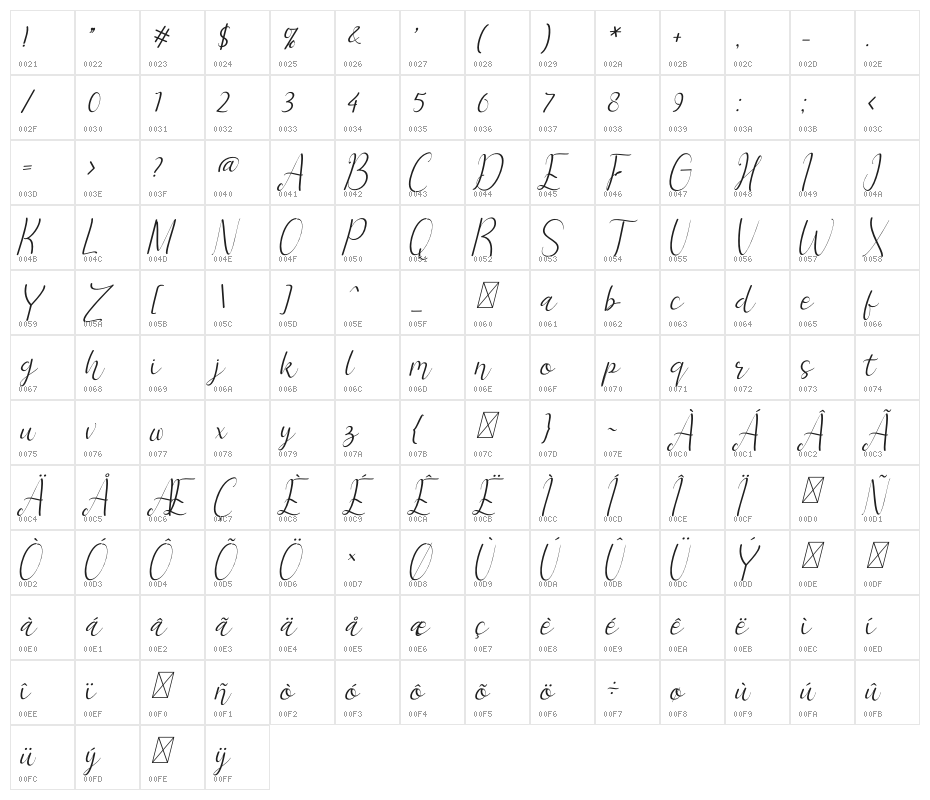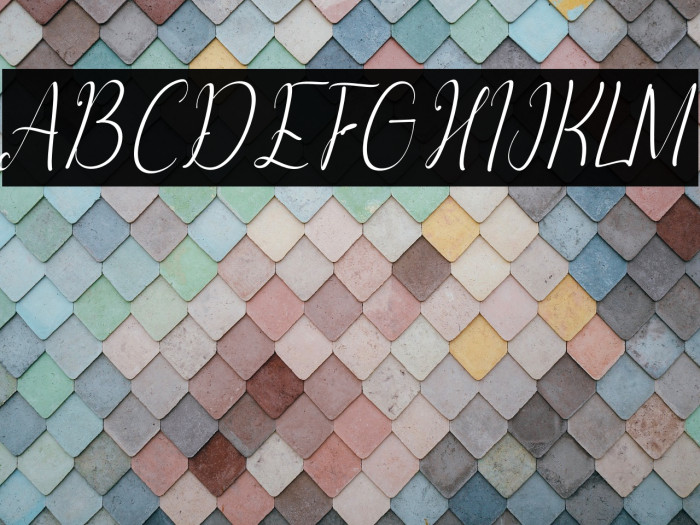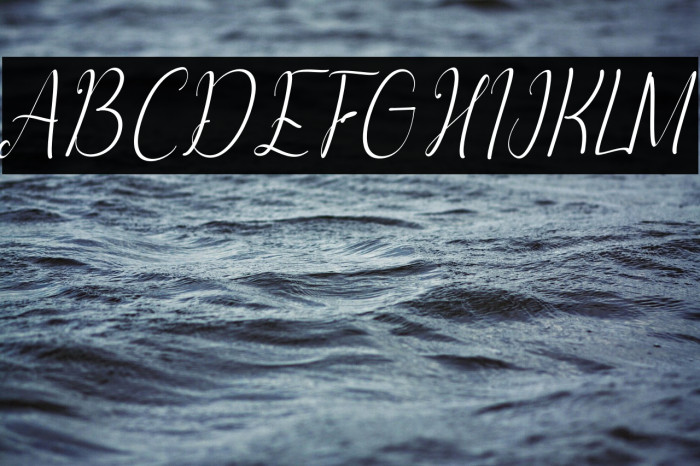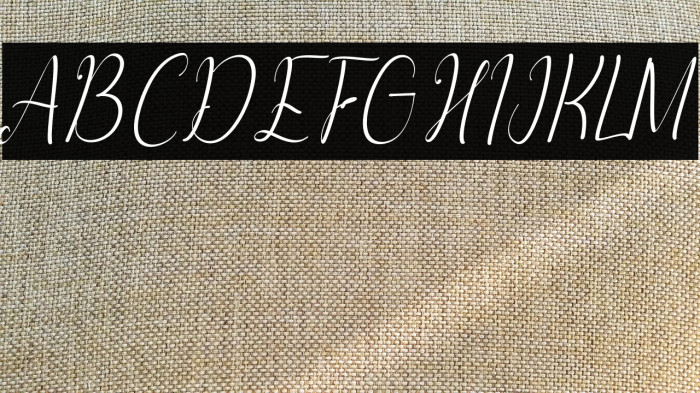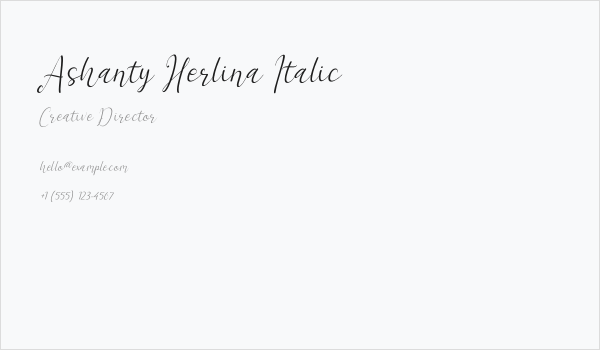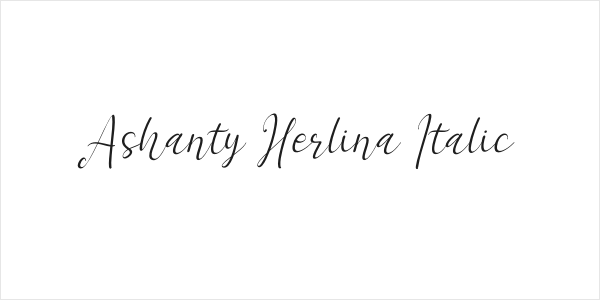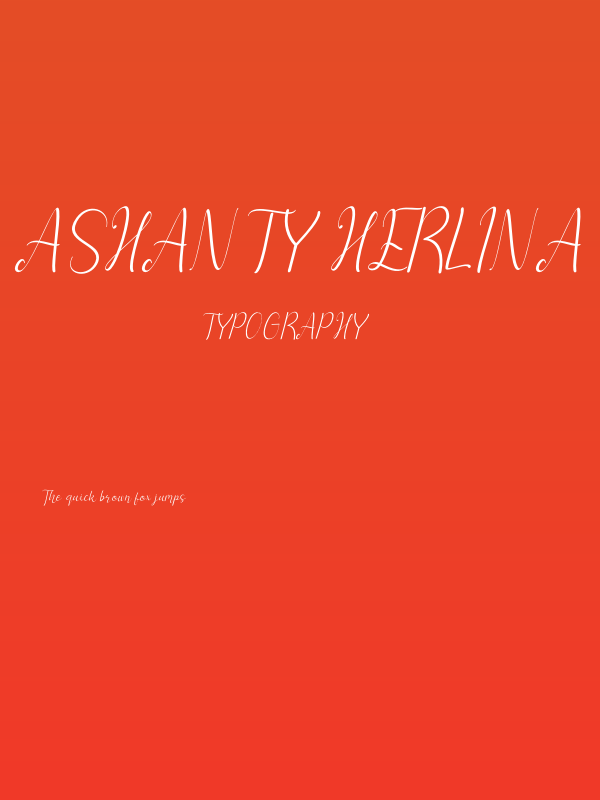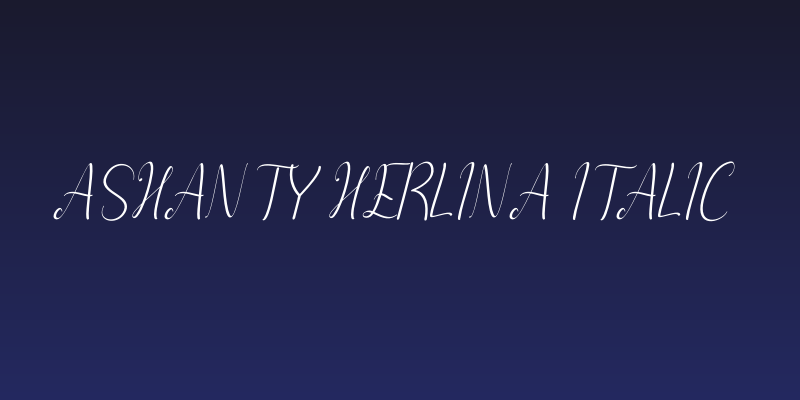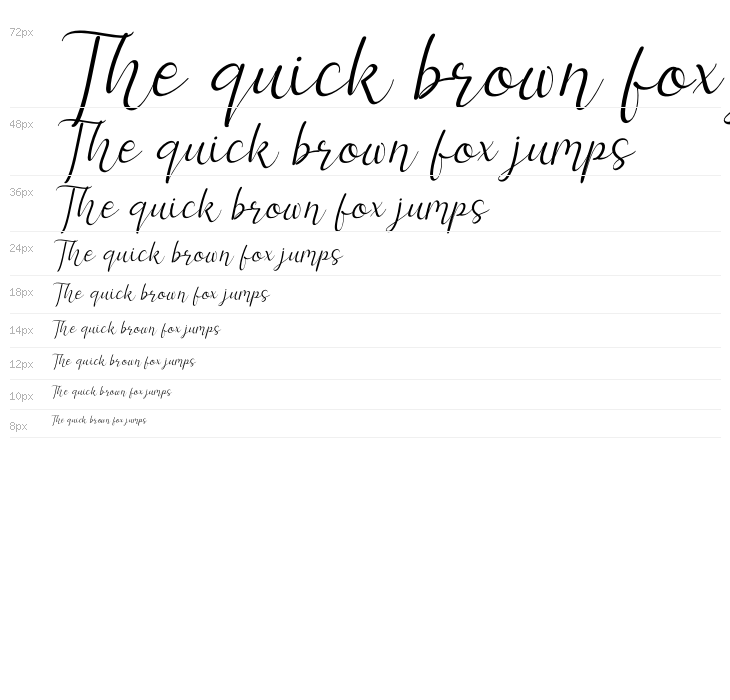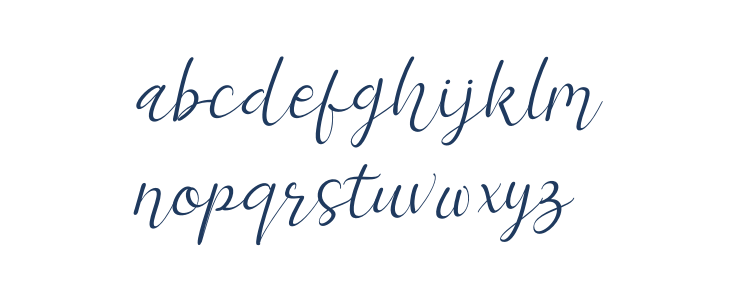
Ashanty Herlina Italic Font
Ashanty Herlina Italic Description
This elegant script font features a flowing, cursive style with a slight slant, giving it a sophisticated and graceful appearance. The characters are connected, creating a seamless and fluid look that is both modern and timeless. The uppercase letters are tall and slender, while the lowercase letters are more rounded and compact, providing a nice contrast. The numerals and special characters maintain the same fluidity, ensuring consistency across all elements. This font is ideal for projects that require a touch of elegance and refinement.
| Overall Style | Elegant, Modern |
| Proposed Projects | Ideal for wedding invitations, elegant branding, personal stationery, and upscale packaging. |